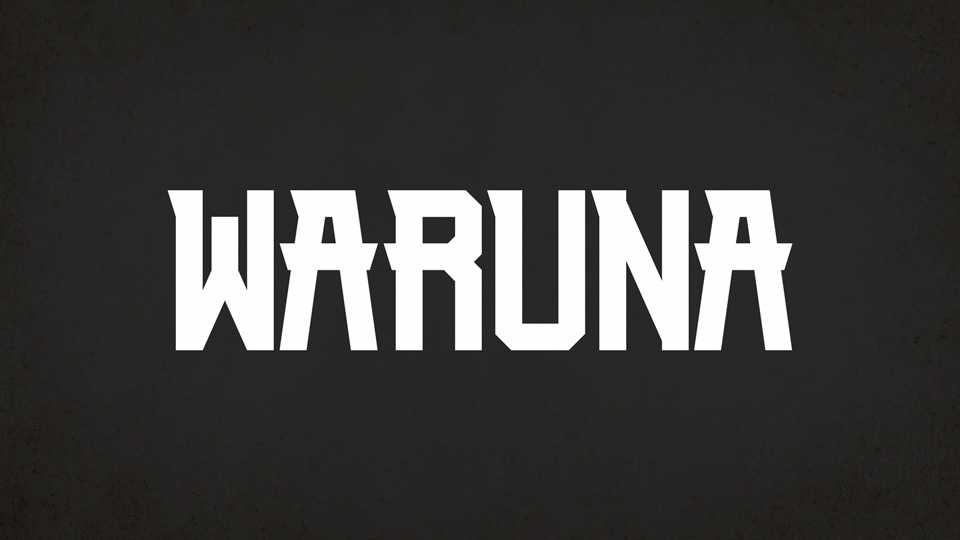
Download Waruna font, a bold and sharp display typeface. Best use of this font is for headlines, display, logotype, clothing, or any short text.
Designer: Emen Studio